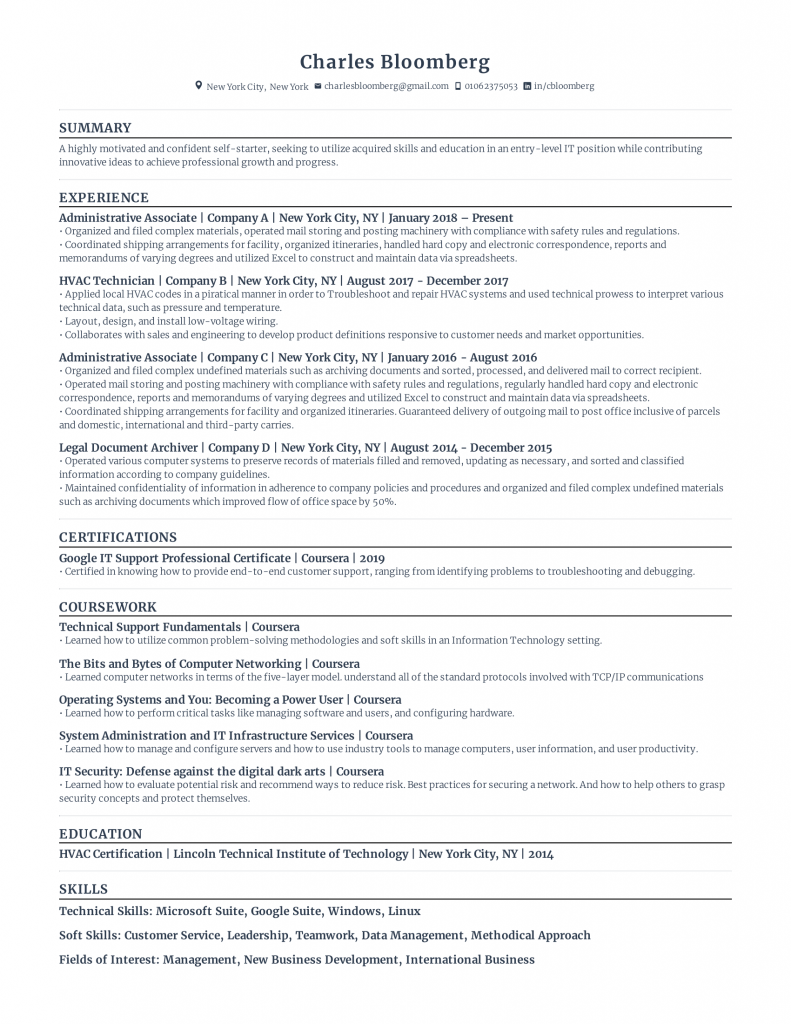
Best Font For Resume Ats . Serif fonts and sans serif fonts. Here’s how to choose the best. The best resume font is one that can be read — by ats as well as recruiters. here’s a detailed list of the best font for ats resume: there are typically two types of fonts you can use on a resume: fonts like arial or calibri are great for fitting more content without sacrificing readability, while verdana works well if you need to fill some white. Best serif fonts for a resume. the best font for getting your resume past ats.
Best serif fonts for a resume. there are typically two types of fonts you can use on a resume: here’s a detailed list of the best font for ats resume: fonts like arial or calibri are great for fitting more content without sacrificing readability, while verdana works well if you need to fill some white. Serif fonts and sans serif fonts. Here’s how to choose the best. the best font for getting your resume past ats. The best resume font is one that can be read — by ats as well as recruiters.
Best Font For Resume Ats Serif fonts and sans serif fonts. there are typically two types of fonts you can use on a resume: Serif fonts and sans serif fonts. the best font for getting your resume past ats. Here’s how to choose the best. here’s a detailed list of the best font for ats resume: The best resume font is one that can be read — by ats as well as recruiters. fonts like arial or calibri are great for fitting more content without sacrificing readability, while verdana works well if you need to fill some white. Best serif fonts for a resume.
Best Fonts for a Resume in 2024 Resume Font Tips Best Font For Resume Ats The best resume font is one that can be read — by ats as well as recruiters. Here’s how to choose the best. Serif fonts and sans serif fonts. there are typically two types of fonts you can use on a resume: fonts like arial or calibri are great for fitting more content without sacrificing readability, while verdana. Best Font For Resume Ats.
How to Write an ATS Resume [16+ Templates Included] Best Font For Resume Ats Best serif fonts for a resume. The best resume font is one that can be read — by ats as well as recruiters. Here’s how to choose the best. here’s a detailed list of the best font for ats resume: there are typically two types of fonts you can use on a resume: Serif fonts and sans serif. Best Font For Resume Ats.
Modern ATS Resume Template, Instant Download CV Design Easy to Edit and Customizable Resume Best Font For Resume Ats The best resume font is one that can be read — by ats as well as recruiters. Serif fonts and sans serif fonts. Here’s how to choose the best. the best font for getting your resume past ats. fonts like arial or calibri are great for fitting more content without sacrificing readability, while verdana works well if you. Best Font For Resume Ats.
These Are The Best Fonts For Your Resume In 2020 Cultivated Culture Best Font For Resume Ats Serif fonts and sans serif fonts. fonts like arial or calibri are great for fitting more content without sacrificing readability, while verdana works well if you need to fill some white. Here’s how to choose the best. The best resume font is one that can be read — by ats as well as recruiters. here’s a detailed list. Best Font For Resume Ats.
The 9 Best Resume Fonts in 2021 Choose The Right Type and Size Rezi Best Font For Resume Ats there are typically two types of fonts you can use on a resume: here’s a detailed list of the best font for ats resume: the best font for getting your resume past ats. Here’s how to choose the best. Best serif fonts for a resume. Serif fonts and sans serif fonts. The best resume font is one. Best Font For Resume Ats.
20++ Ideas For Ats Compliant Resume Fonts Best Font For Resume Ats Serif fonts and sans serif fonts. Best serif fonts for a resume. there are typically two types of fonts you can use on a resume: The best resume font is one that can be read — by ats as well as recruiters. the best font for getting your resume past ats. fonts like arial or calibri are. Best Font For Resume Ats.
What are the best resume fonts and sizes? Here’s how to decide. Best Font For Resume Ats fonts like arial or calibri are great for fitting more content without sacrificing readability, while verdana works well if you need to fill some white. there are typically two types of fonts you can use on a resume: Here’s how to choose the best. Best serif fonts for a resume. Serif fonts and sans serif fonts. here’s. Best Font For Resume Ats.
Best Font For Resume Ats Free Samples , Examples & Format Resume / Curruculum Vitae Free Best Font For Resume Ats Serif fonts and sans serif fonts. The best resume font is one that can be read — by ats as well as recruiters. Best serif fonts for a resume. there are typically two types of fonts you can use on a resume: the best font for getting your resume past ats. Here’s how to choose the best. . Best Font For Resume Ats.
42+ Best Resume Font For Ats For You bilder wohnzimmer Best Font For Resume Ats fonts like arial or calibri are great for fitting more content without sacrificing readability, while verdana works well if you need to fill some white. Here’s how to choose the best. there are typically two types of fonts you can use on a resume: here’s a detailed list of the best font for ats resume: The best. Best Font For Resume Ats.